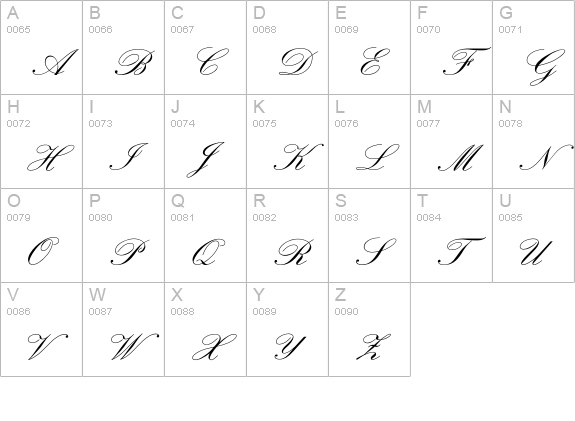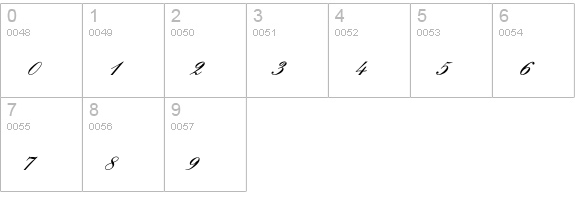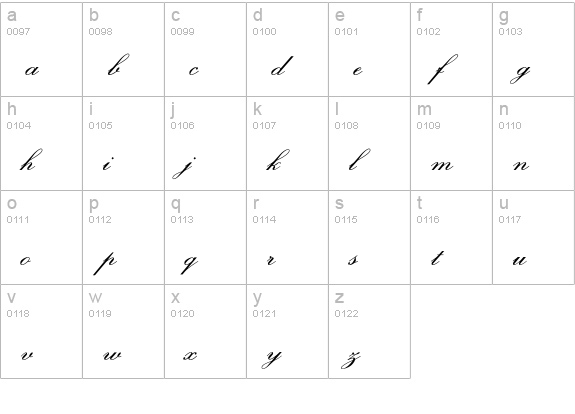
HelenaDemiBold is a stunning and versatile font that effortlessly combines elegance and modernity. This font exudes confidence and sophistication, making it perfect for a wide range of design projects. From logo designs and branding materials to website headers and editorial layouts, HelenaDemiBold will elevate any visual composition. With its bold and strong letterforms, HelenaDemiBold commands attention and adds a touch of authority to any text. The clean lines and balanced proportions create a sense of professionalism, making it an excellent choice for corporate communications and business presentations. This font strikes the perfect balance between readability and visual impact, ensuring that your message is effectively conveyed to your audience. One of the most remarkable features of HelenaDemiBold is that it is free. Yes, you read that right - this exceptional font is freely available to download at FontsMarket.com. This means that you can enhance your design projects without having to worry about any additional costs. Whether you are a professional designer or a passionate hobbyist, HelenaDemiBold offers you the opportunity to create stunning visuals without breaking the bank. So why wait? Download HelenaDemiBold today and unlock a world of design possibilities. With its striking aesthetic and its availability at no cost, this font is a must-have for anyone looking to make a bold statement in their designs. Don't miss out on the opportunity to add HelenaDemiBold to your font collection and elevate your creative projects to new heights.